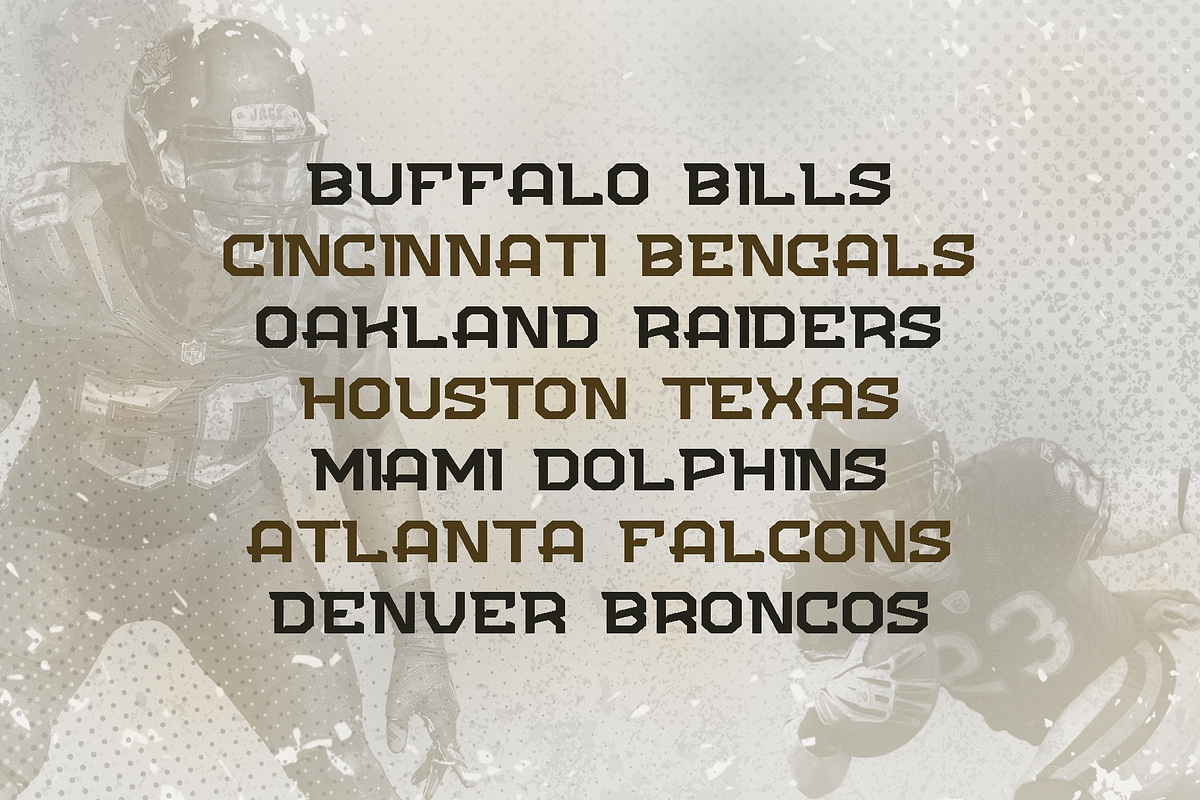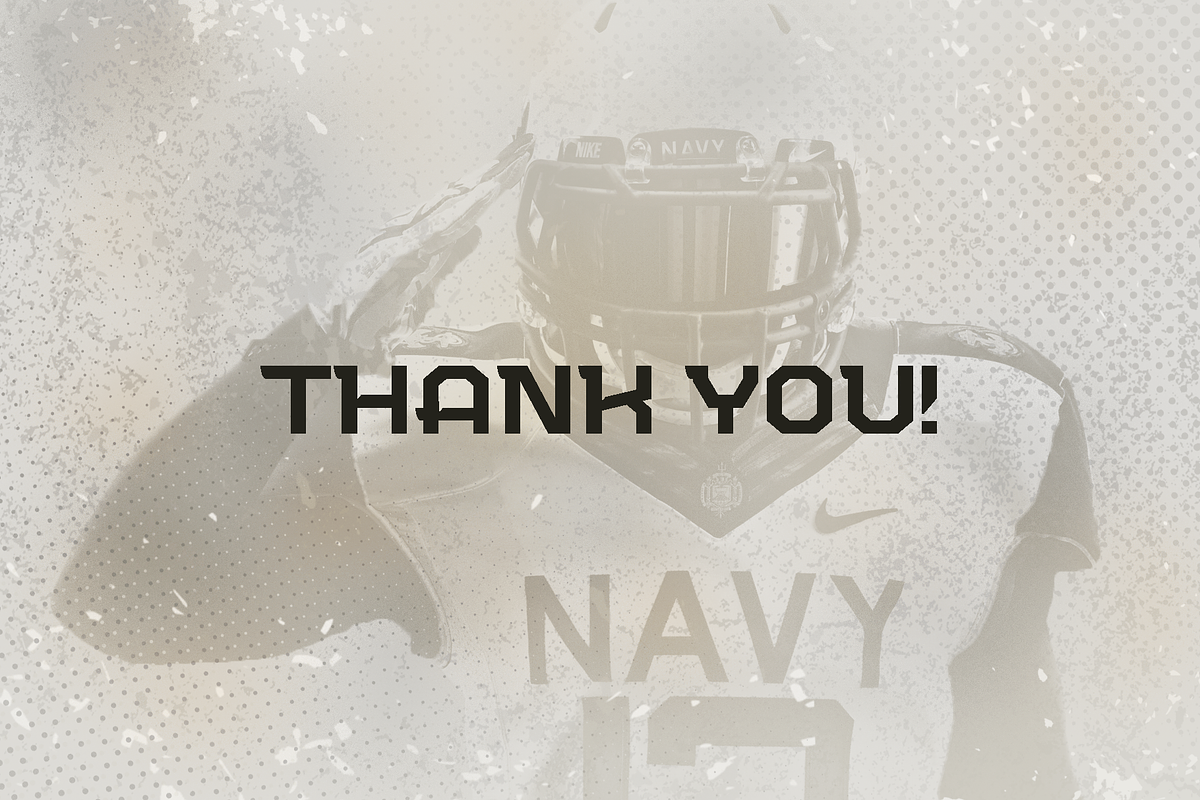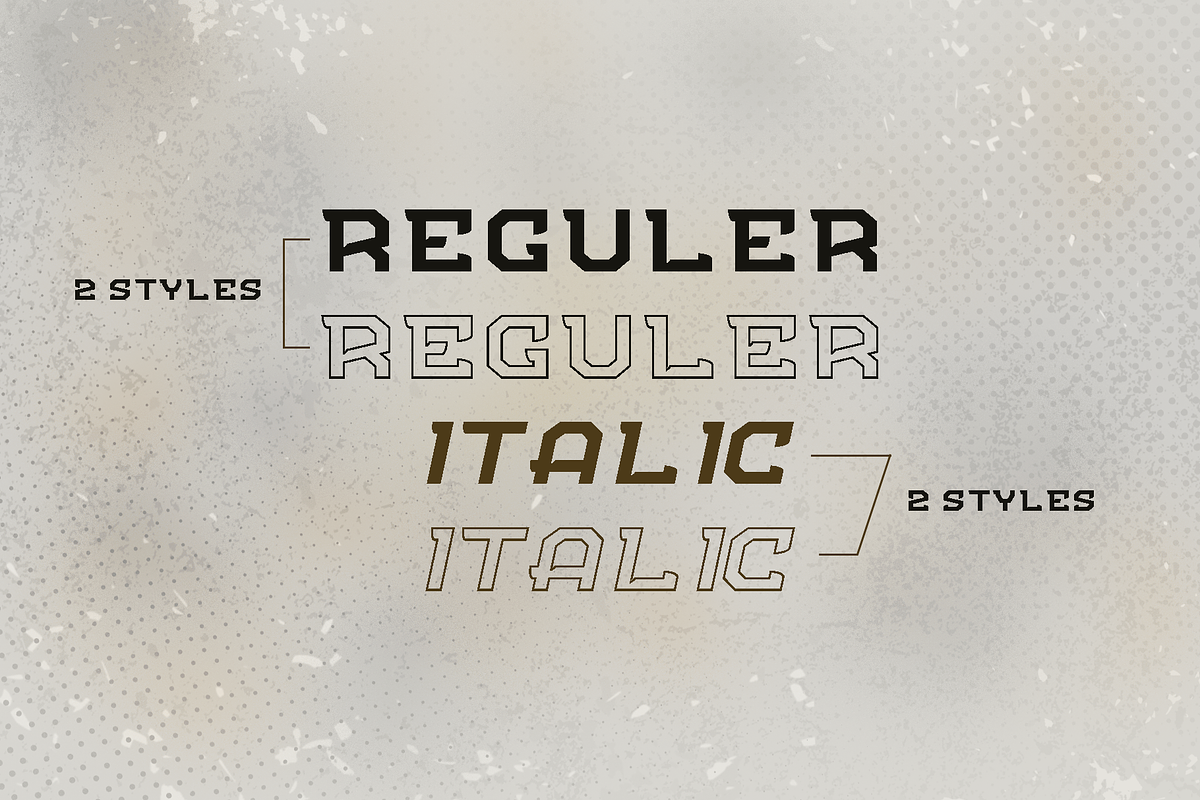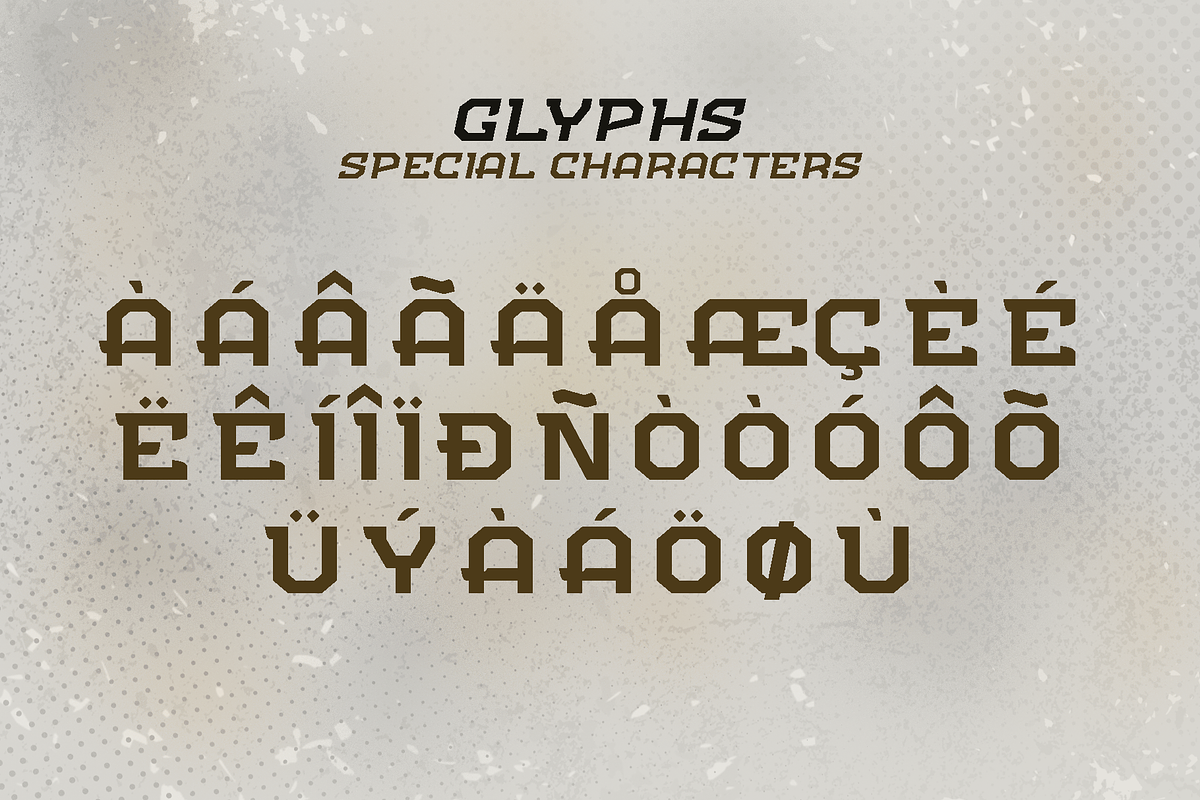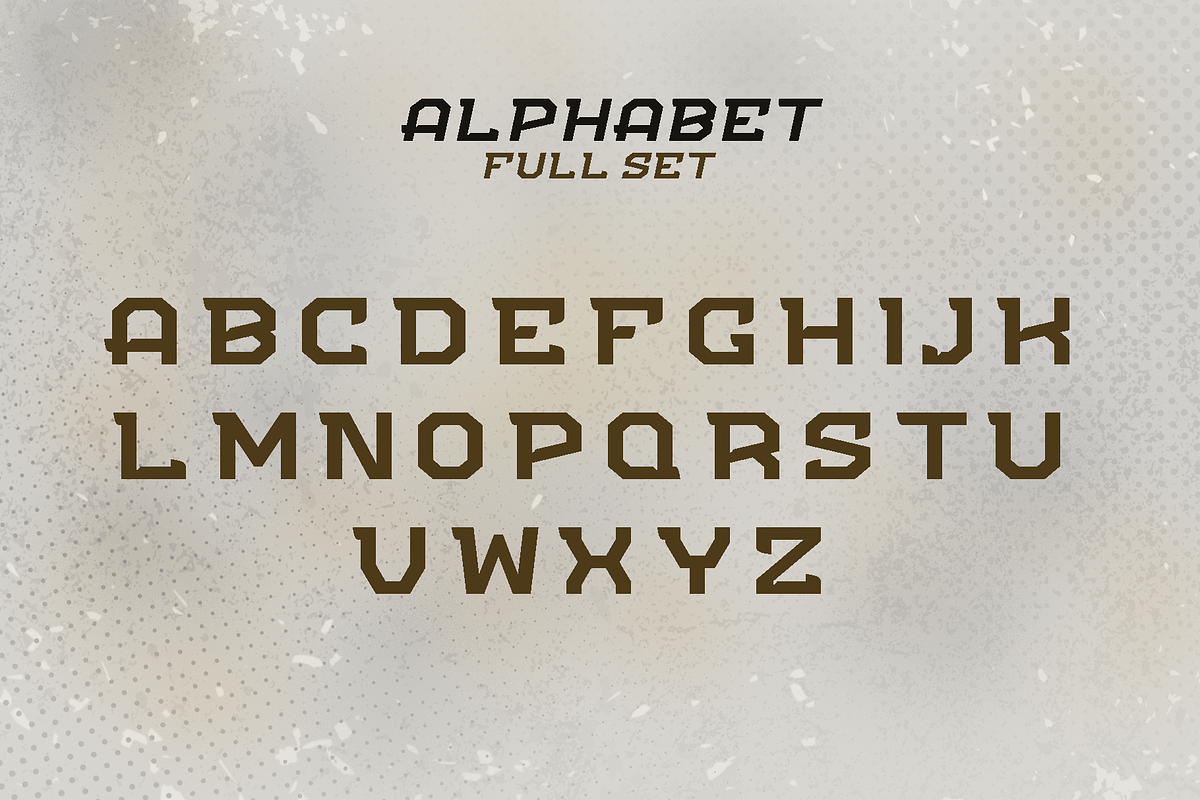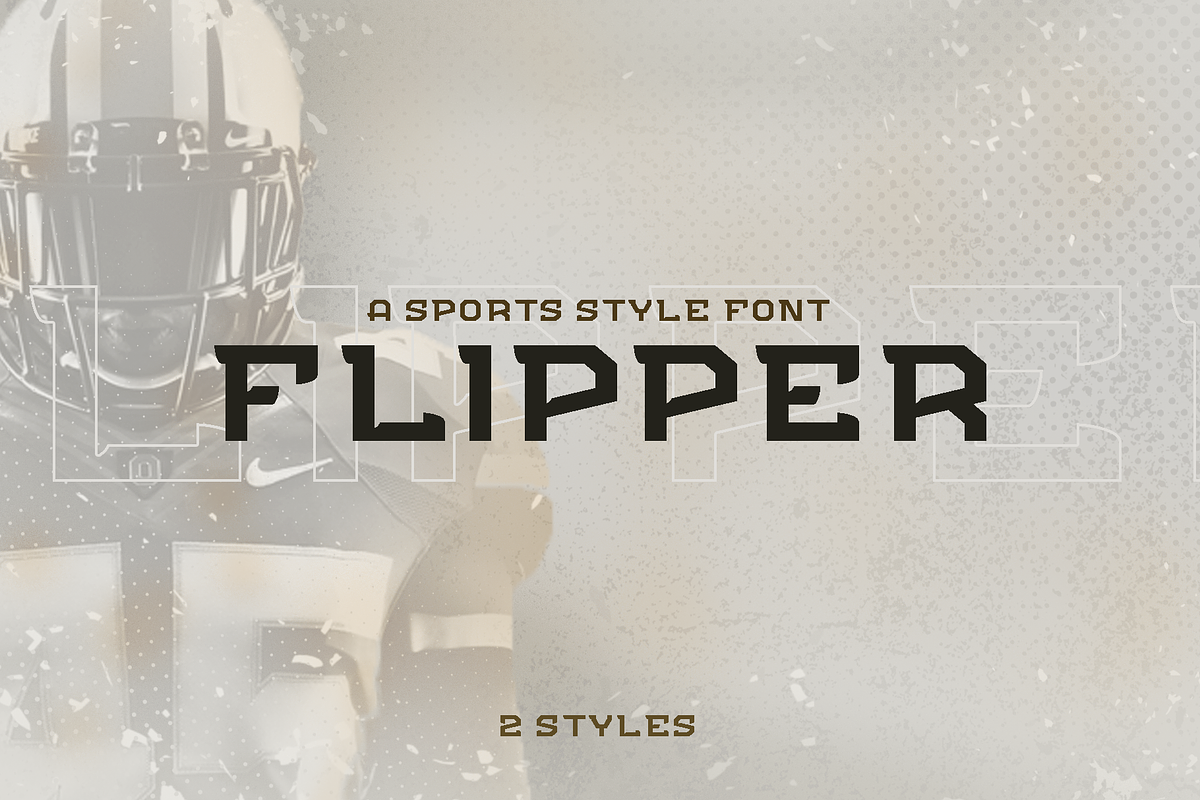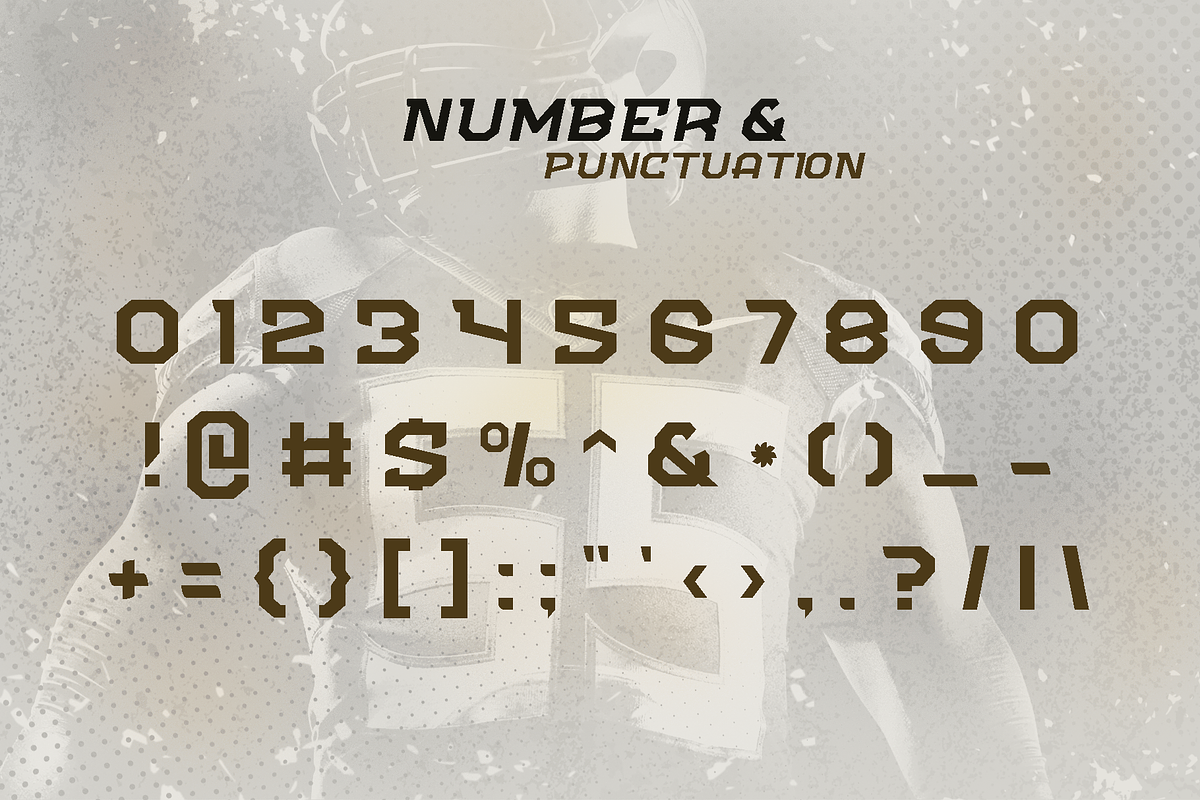
FLIPPER font, is our new item that suitable for your team logo, or community logo.
- NFC Flipper Outline Regular
- NFC Flipper Outline Italic
- NFC Flipper Bold
- NFC Flipper Bold Italic